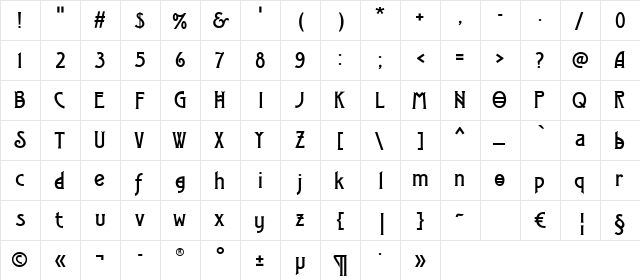
Modernist Two Regular
Design Context for Modernist Two Typeface
Modernist Two is a composed and adaptable typeface that performs quietly and consistently across a wide range of design contexts.